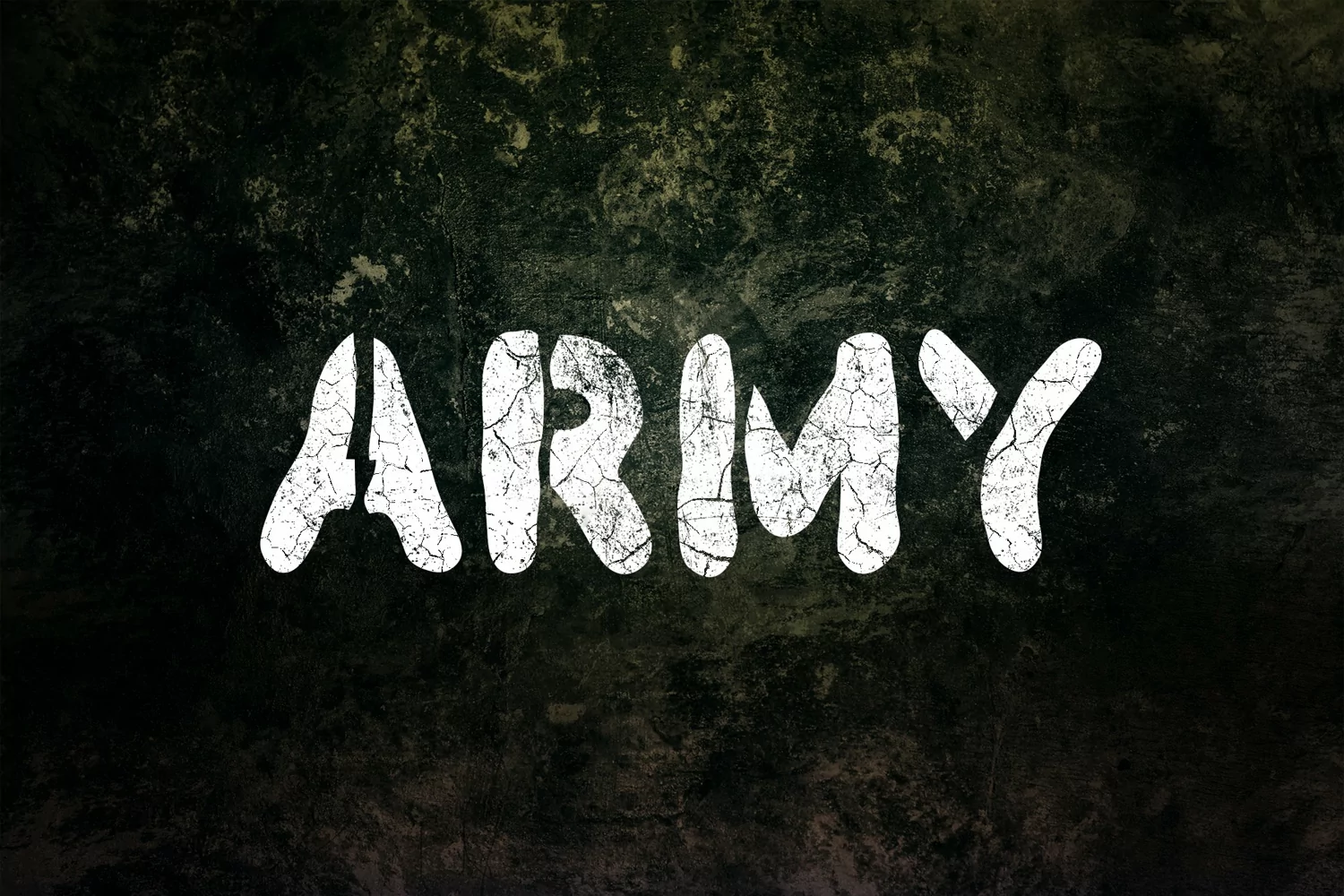
Soldier Stencil is a cool looking, bold and imposing display font. Add this font to your library and utilize it for each of the creations that require an assertive vibe.
Army Stencil is made of 3 different fonts Soldier Neue, Soldier Grunge and Soldier Font. Soldier Neue has smoother more soft feel. Soldier Grunge and Soldier have more retro distressed style.